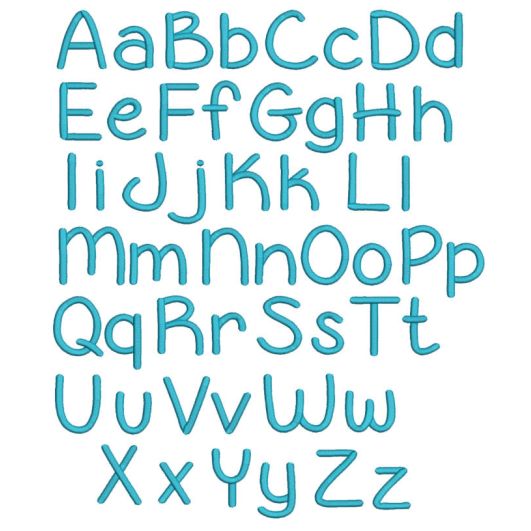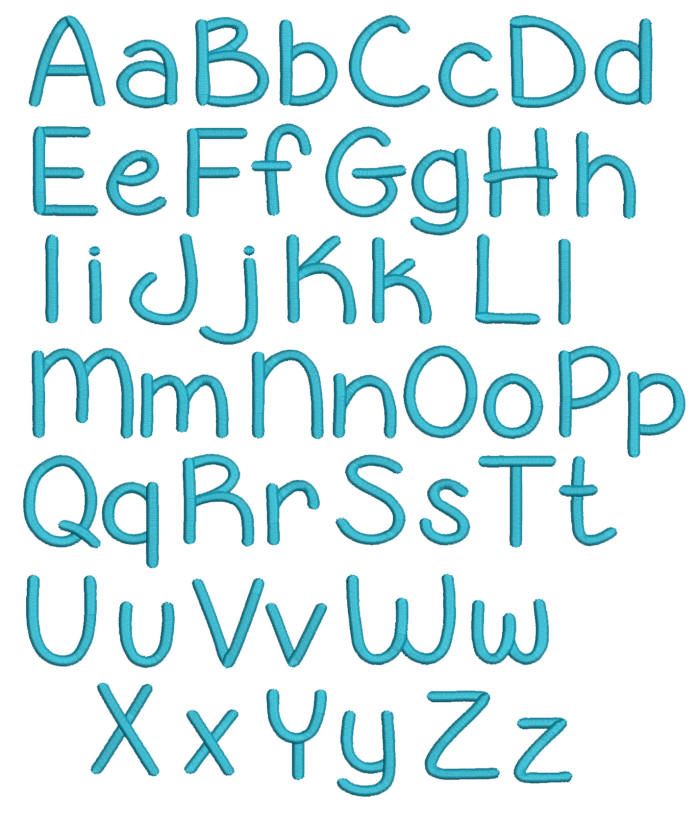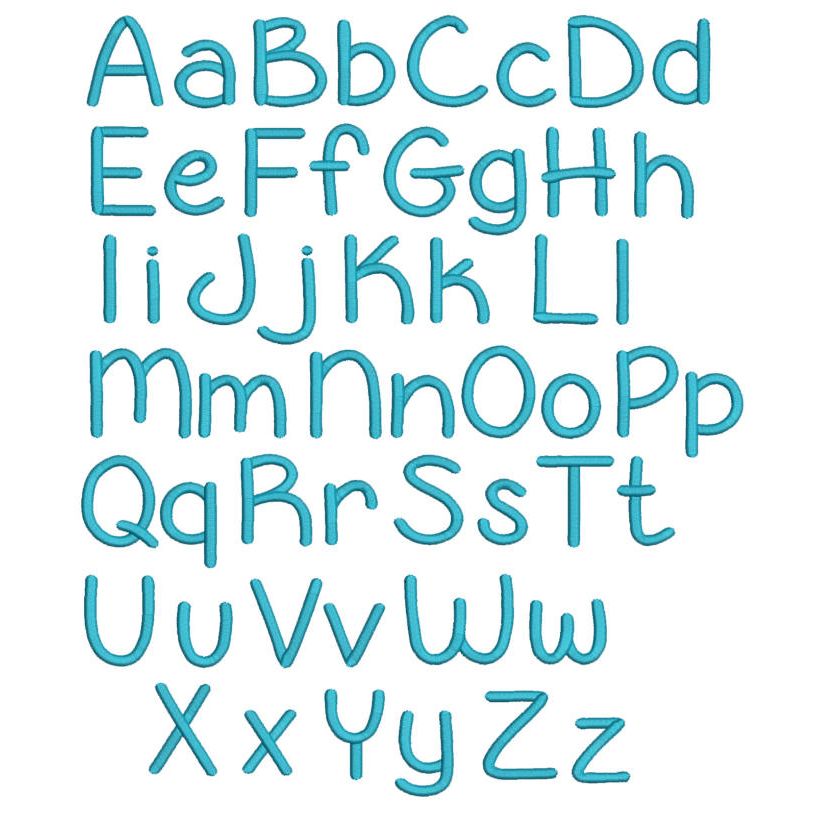
Georgia Satin Stitch Embroidery Font
A cute and simple printed handwriting style..great for boys and girls!  All of our font alphabets are always 100% manually digitized to bring you maximum stitch quality. Please note: These are individual machine stitch files and NOT keyboard fonts that you can "type". You *must* have embroidery customizing software to merge your letters together to form monograms and names.